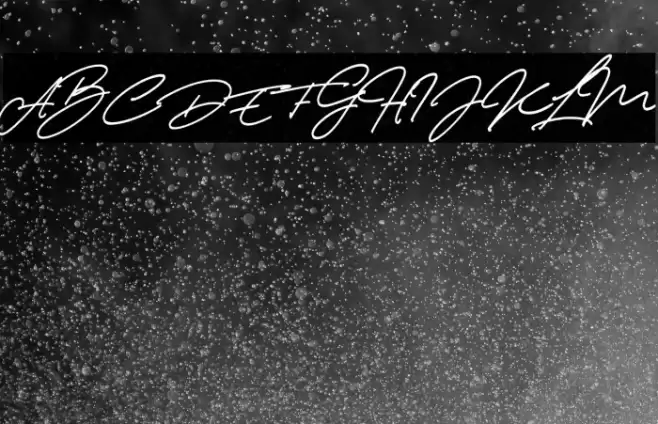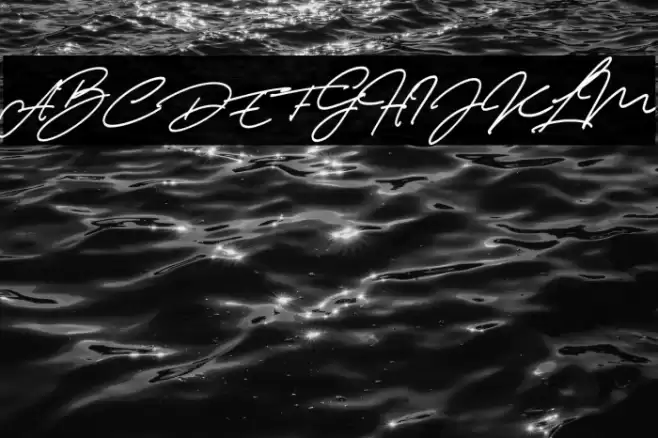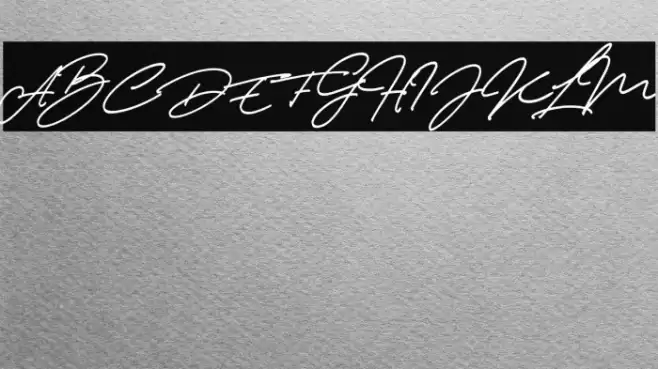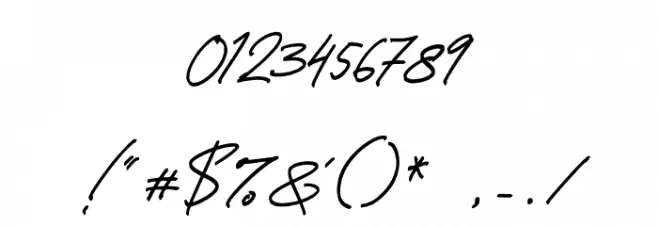
Thunder Stone Script Font
Thunder Stone Script Description
This font exudes a dynamic and energetic vibe with its fluid, cursive strokes that mimic natural handwriting. The letters are interconnected, creating a seamless flow that enhances its script style. The uppercase characters are bold and expressive, while the lowercase letters maintain a consistent rhythm, adding to the font's overall elegance. Numbers and special characters are crafted with the same attention to detail, ensuring versatility across various applications. The font's design is both modern and timeless, making it suitable for a wide range of creative projects.
A dynamic, cursive script font with fluid, interconnected strokes from Uncategorized fonts.
- Font: Thunder Stone Script
- Proposed Projects: Ideal for wedding invitations, branding, logos, and elegant stationery.
- Character Spacing: Tight
- Use Case: Logos, Invitations, Branding